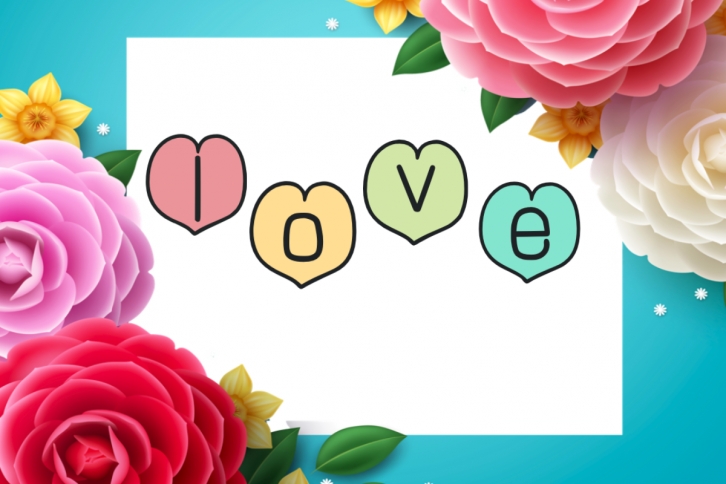
Love is a lovely, fun, cute and simple font. Its friendly feel makes it incredibly flexible, fitting a wide range of contexts. Have fun with this trendy font and explore its endless variations. Add it to each of your creative ideas, and notice how it makes them stand out!